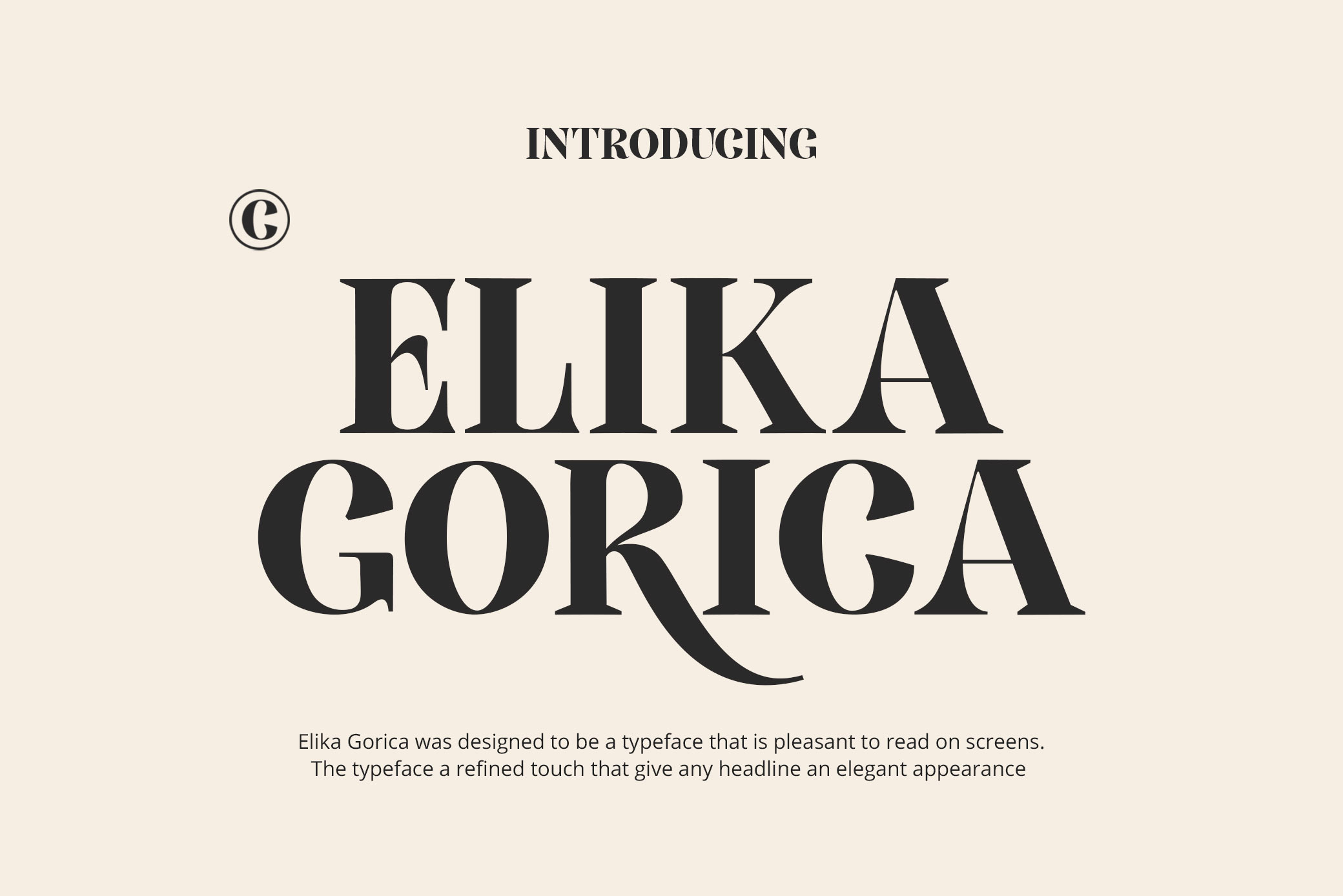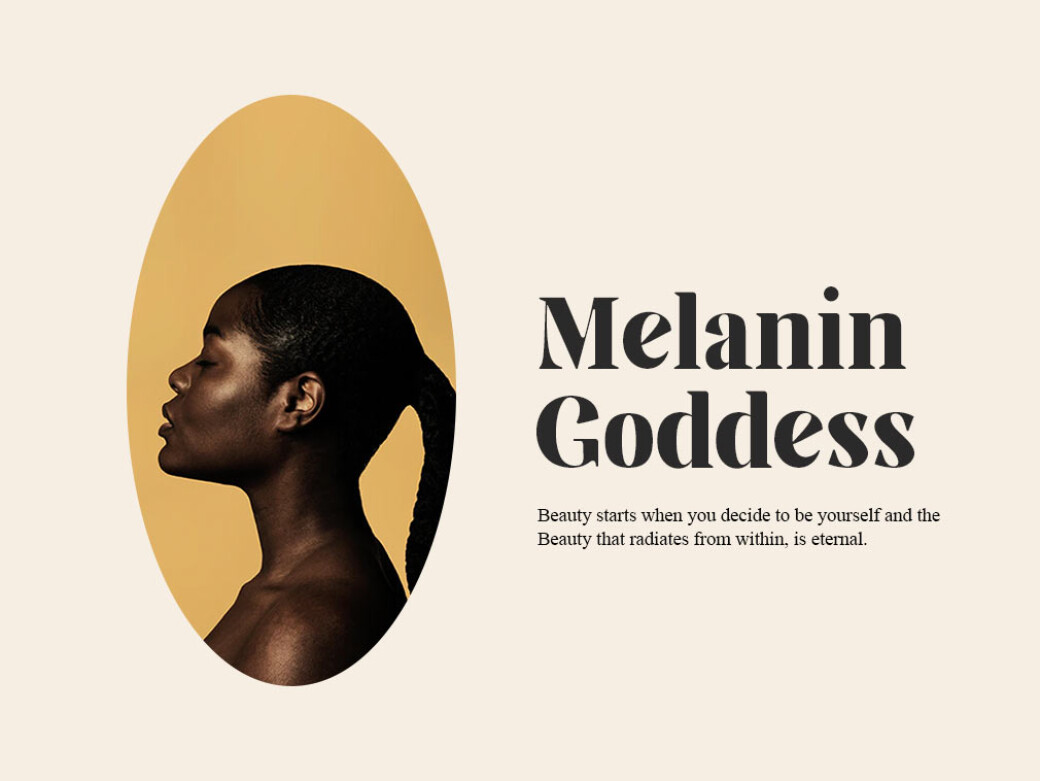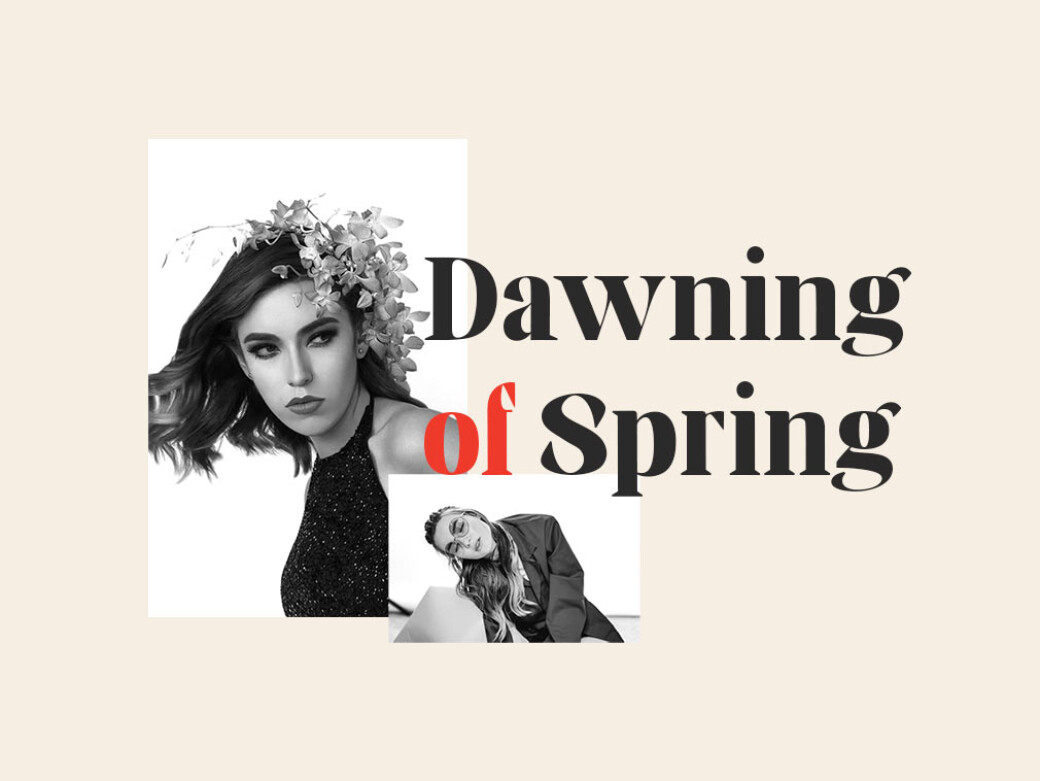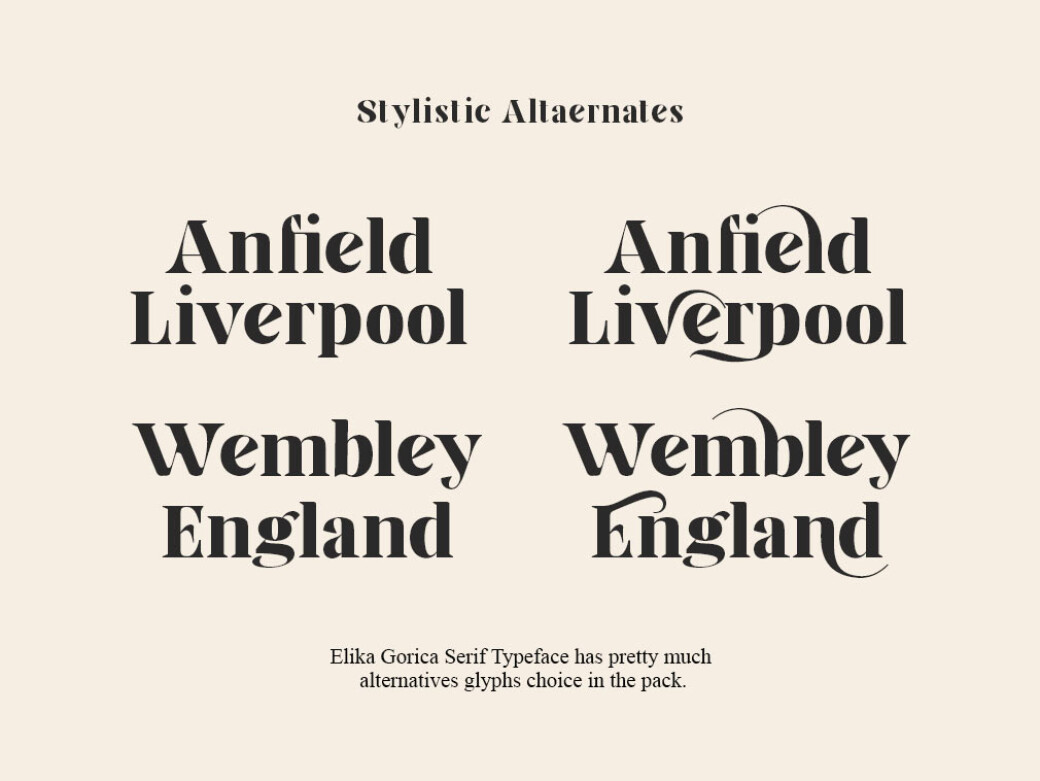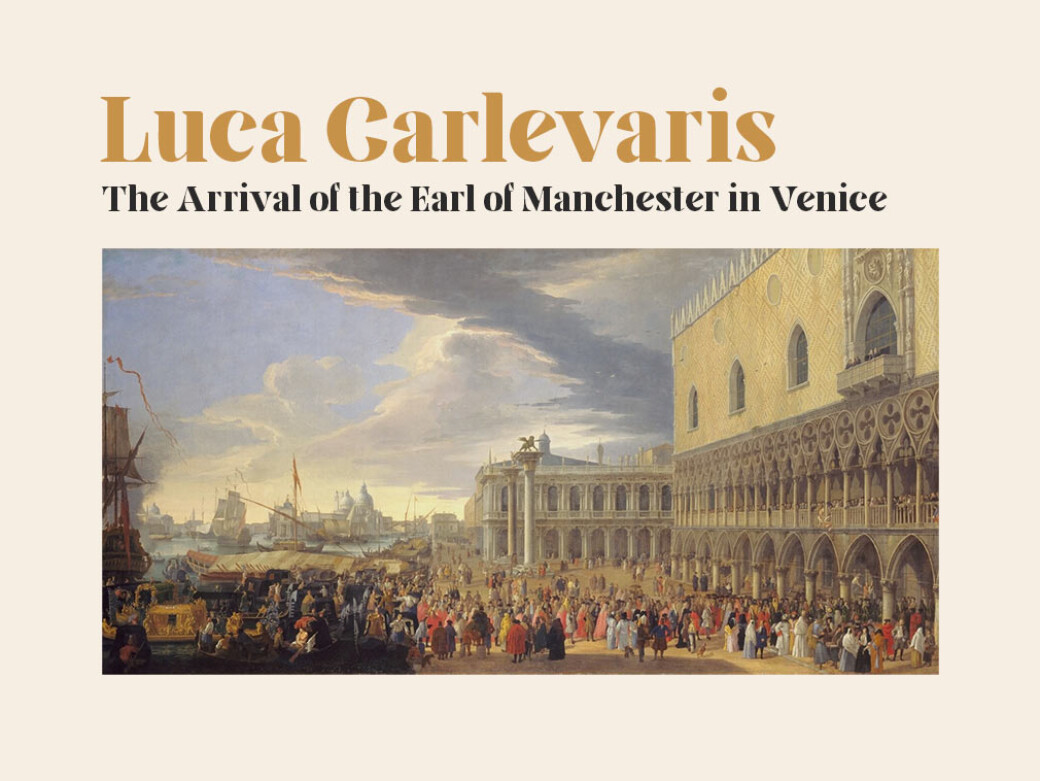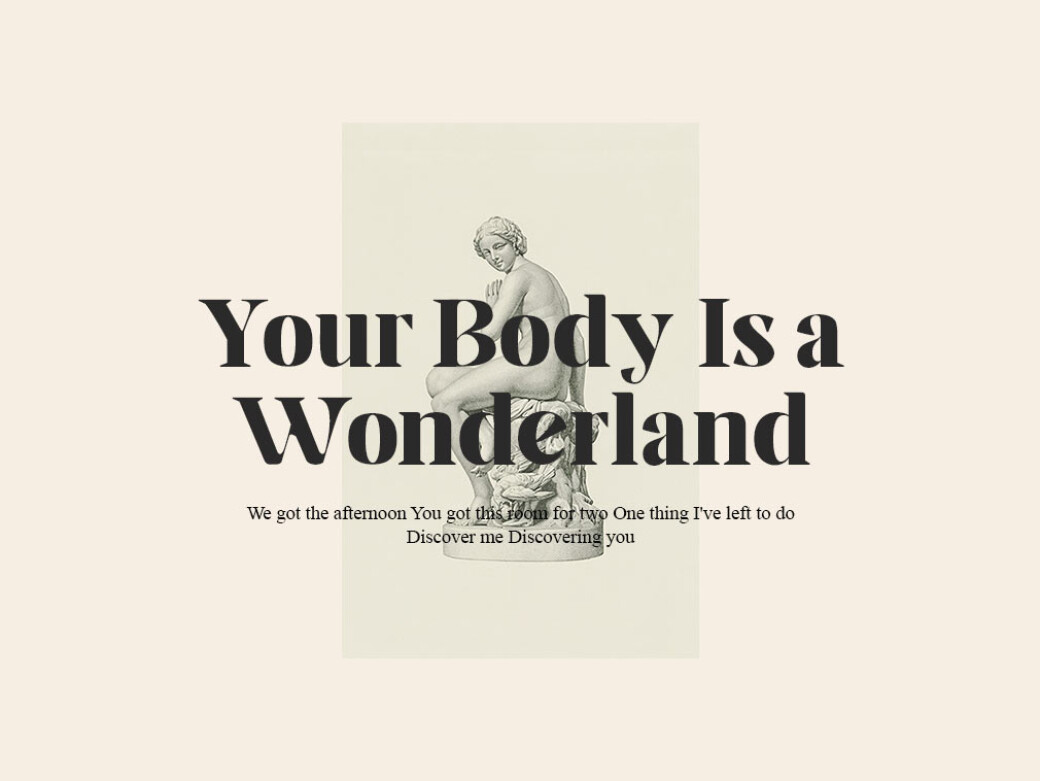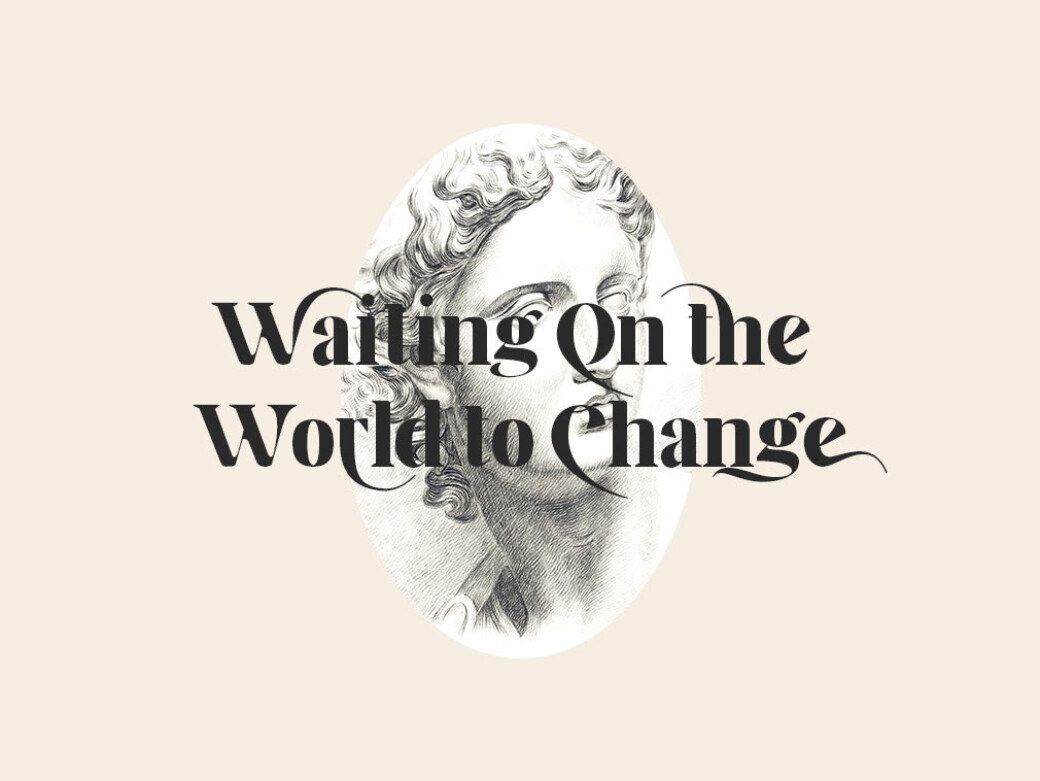
Elika Gorica Display Font
This display font was designed to be a typeface that is pleasant to read on screens. Having a refined touch, the typeface can give any headline an elegant appearance. Watch the merge of modern and vintage curves!Elika Gorica is designed with both styles being involved: it's a modern vision of a contemporary digital typeface and hand-drawn curves of a vintage font. The package includes a vast collection of alternative glyphs and multilingual support. It works perfectly for creative projects such as logo, T-shirt/apparel, badge, invitation, packaging, headline, poster, magazine, greeting card, and wedding invitation. You can access the OpenType features and multilingual option on mostly Adobe programs, such as Indesign, Illustrator, Photoshop etc.